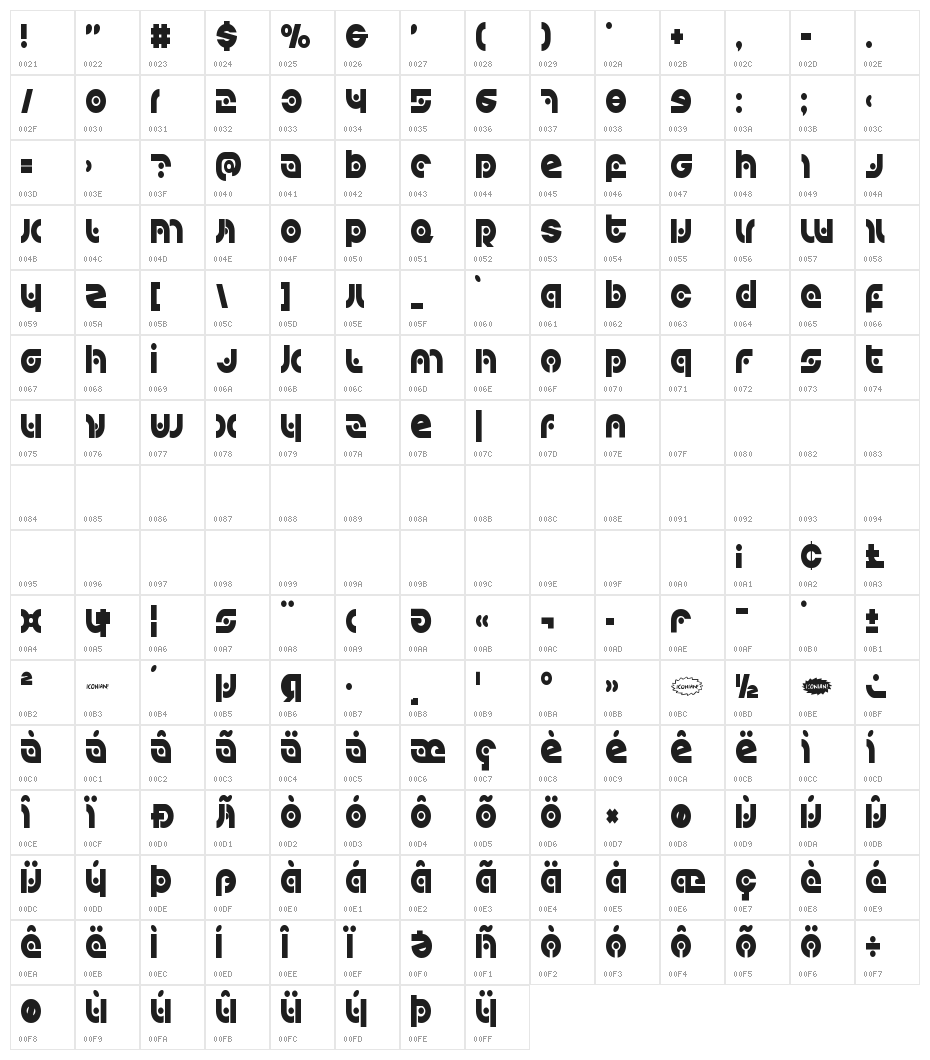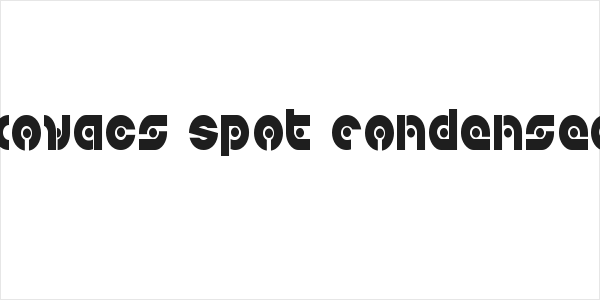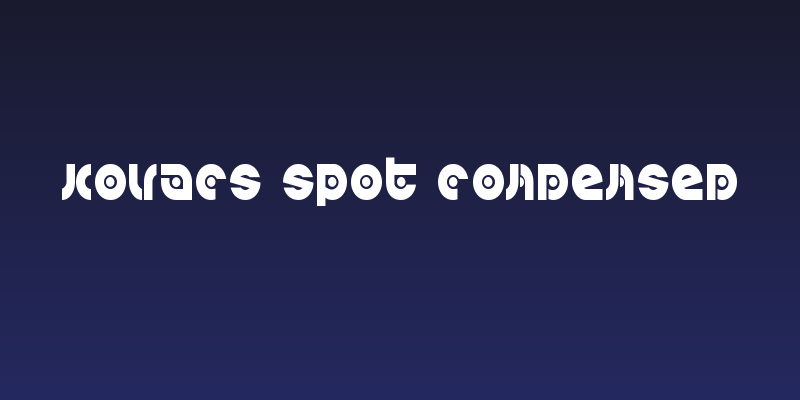
Kovacs Spot Condensed Font
Kovacs Spot Condensed Description
This font features a bold and geometric design, characterized by its condensed and blocky letterforms. The shapes are constructed with a combination of straight lines and curves, creating a futuristic and modern appearance. The characters are tightly spaced, enhancing the compact and dense look. The uppercase and lowercase letters share similar structural elements, contributing to a cohesive visual style. The numerals and special characters maintain the same geometric aesthetic, ensuring consistency across all glyphs. This font's unique style makes it suitable for eye-catching designs.
Proposed ProjectsIdeal for branding, posters, headlines, and any project requiring a modern and striking visual impact.